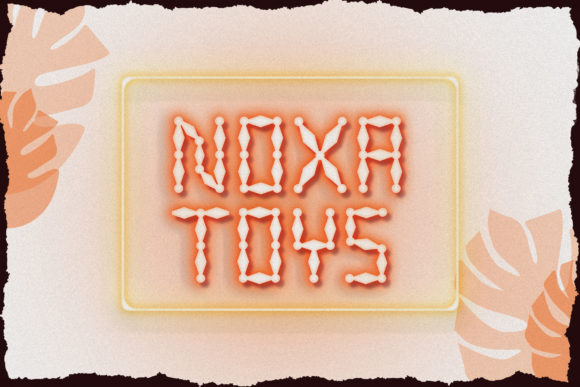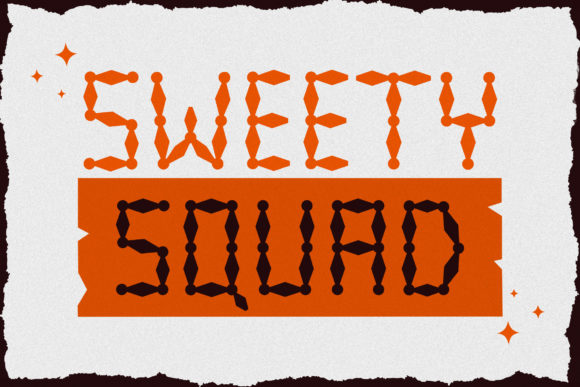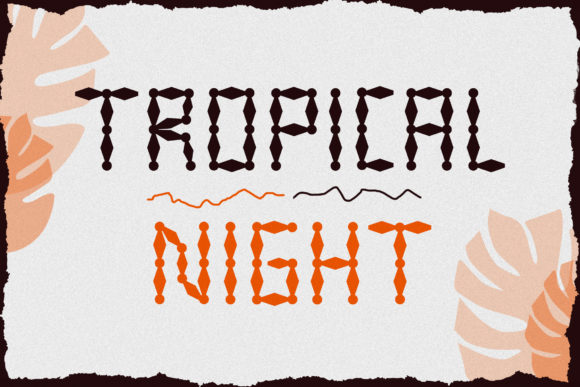
Introduction to Simplemax Font
Have you ever found yourself rummaging through your design stash, desperately searching for that perfect font to give your project a little extra oomph? We’ve all been there – staring blankly at a sea of fonts, none of which seem to capture the essence of our creative vision. That’s where the Simplemax Font comes in – a game-changing, high-quality display font that’s sure to take your designs to the next level.
With its unique and playful feel, the Simplemax Font is the perfect addition to any design resource. Whether you’re working on a crafting project or just need a fun font to spice up your social media graphics, this free download is a must-have. And the best part? It’s available for free, with a transparent background that makes it easy to customize and work with.
Key Features of Simplemax Font
- High-quality design resource ideal for creative projects, offering a professional look and feel.
- With a transparent background, this font is perfect for designs that require a clean and minimalist aesthetic.
- Unique characteristics include a modern and sleek design, making it an excellent choice for designers looking to add a touch of sophistication to their creative project.
Honest Review: Simplemax Font
As a designer, I’m always on the lookout for high-quality design resources that can elevate my creative projects. Recently, I stumbled upon the Simplemax Font, and I’m excited to share my honest review with you.
Here’s what I like about the Simplemax Font:
- ✨ High-quality glyphs that render beautifully on transparent backgrounds
- ✨ A clean and modern design aesthetic that’s perfect for minimalistic projects
- ✨ Great for creating digital products, such as e-books, presentations, and websites
- ⚠️ Limited character set, which may not be ideal for projects that require a wide range of languages
- ⚠️ No bold or italic weights, which can make it harder to create visual hierarchy
Overall, I think the Simplemax Font is a great addition to any designer’s toolkit, especially for free download. While it may not be perfect, its strengths make it a valuable resource for creative projects. I’d definitely recommend it to designers who are looking for a simple, high-quality font for their next project.
Simplemax Font
Tips for Getting the Most Out of Simplemax Font
For the best results, use the Simplemax Font on a transparent background to create a clean and minimalist look. You can also experiment with different font sizes, colors, and combinations to create a unique look for your creative project.
Common Use Cases for Simplemax Font
The Simplemax Font is perfect for creating a modern and minimalist look for your creative project. It’s commonly used for text overlays, headings, and any other text element in designs such as logos, brochures, and business cards.